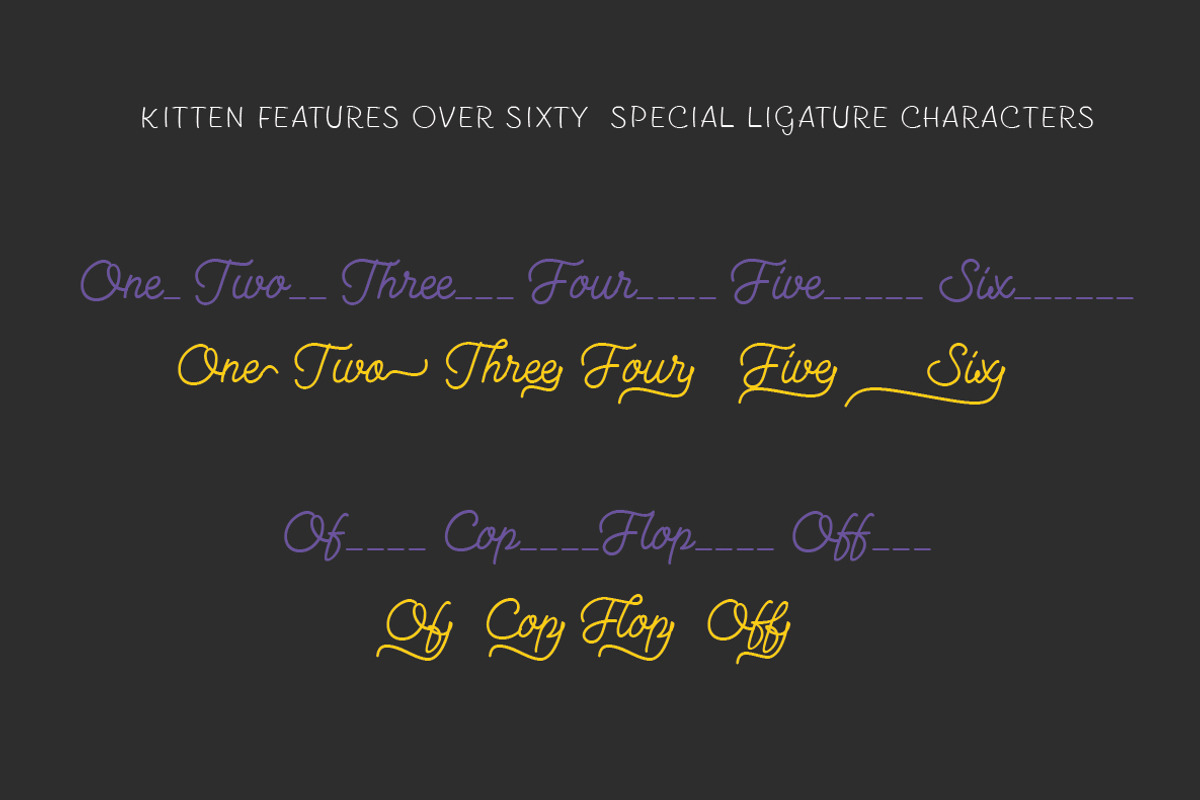
Kitten - 13 fonts
Kitten - 13 fonts by Zetafonts is a font selected for branding, posters, packaging, typography.
- Kitten is a multi weight script family with a sign painter aesthetic and a wide range of variants, alternates and ligatures.
- Kitten covers over 40 languages that use the Latin alphabet, with a full range of accents and diacritics.
- Kitten makes full use of OpenType ligatures to avoid letter clashes in uppercase and provide alternates and a wide array of ligature charact
Kitten - 13 fonts by Zetafonts fits naturally into Branding, posters, packaging, typography.